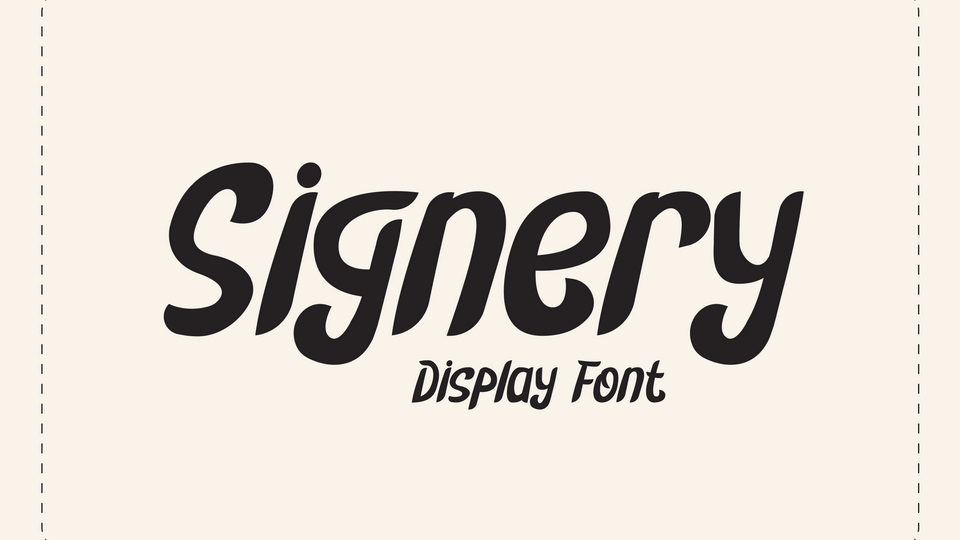
Download Signery font, a display typeface that took its inspiration from a sign-painting style. The flow, the stylistic end that is created based on the brush tips movement, will look solid on your projects, isn’t it?